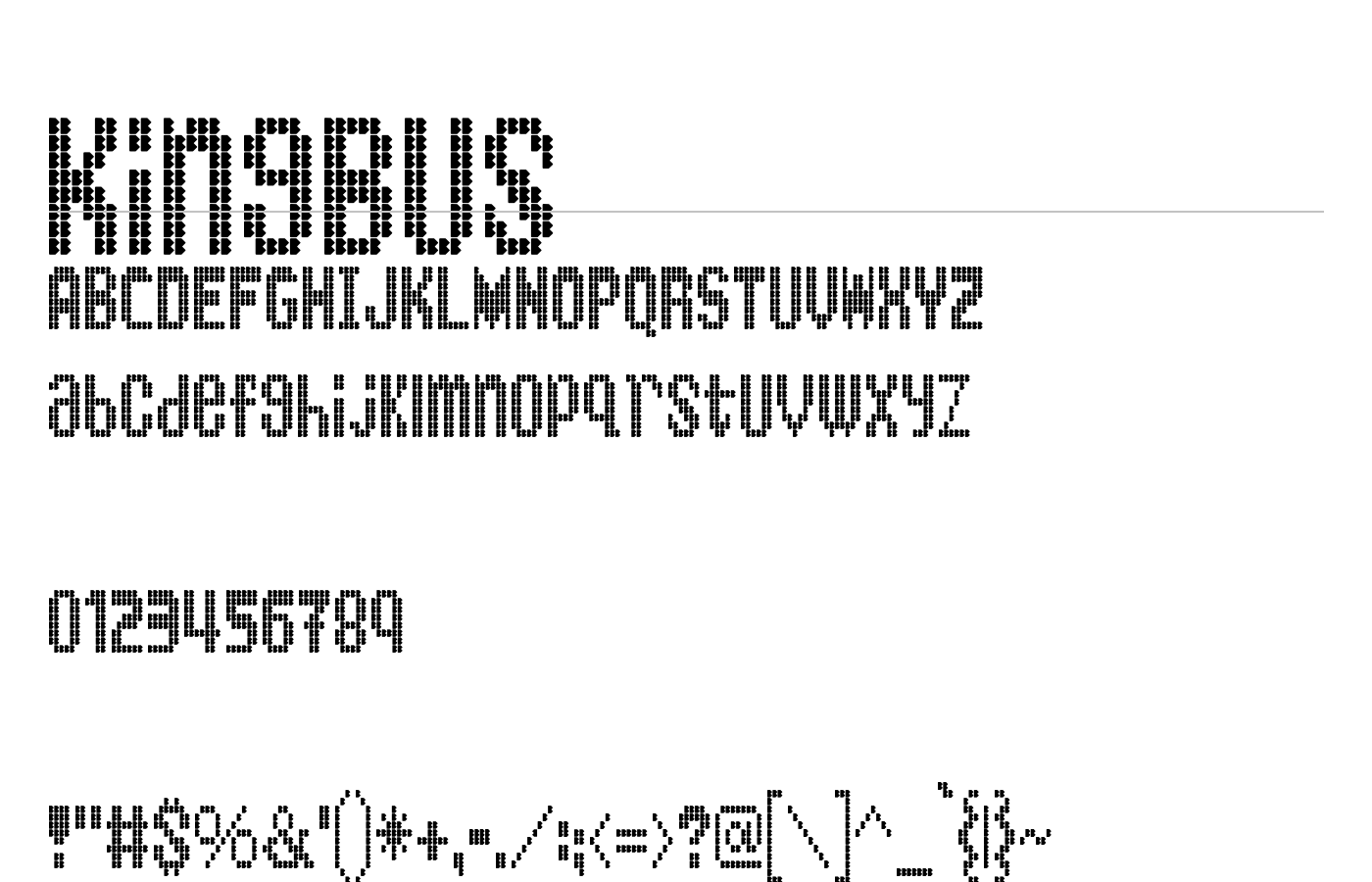
KingBus is a distinctive pixelated sans serif font with a modern, digital-inspired style. Its blocky, grid-like letterforms give a retro video game or electronic display vibe, making it ideal for tech, gaming, or futuristic branding. This font works well for bold headlines and creative projects where a unique, tech-savvy look is desired.
KingBus Font
About KingBus Font